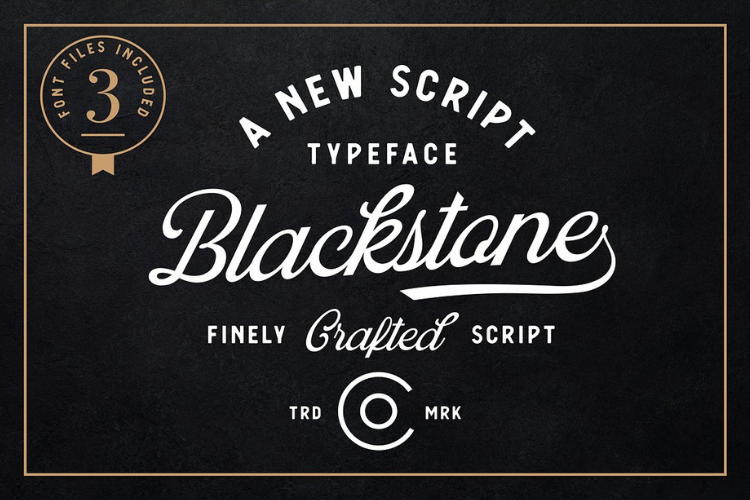
Blackstone Script
Introducing Blackstone Script
Blackstone Script is a clean ultra-versatile script font that comes with 2 texture treatments. This is a typeface that works perfectly to convey a vintage aesthetic. If you're looking for a go-to script font for restaurants, bars, menus, apparel, badges, etc. you've come to the right place.
Blackstone Script pairs very well with another typeface I've designed: Berringer https://crmrkt.com/N0Xl6k (As shown in the displays above)
Blackstone Script comes complete with Western European Characters, Multiple Alternate Characters, a swash that fits on the end of each lowercase character, as well as some ligatures.